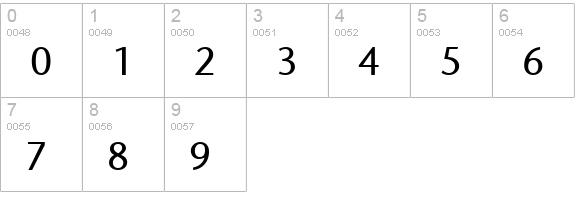
Caltex Nova Sans Font Details
Caltex Nova Sans is a modern and versatile typeface that exudes sophistication and elegance. With its clean lines and balanced proportions, this font is perfect for a wide range of design projects, from branding to editorial layouts. The sleek and contemporary aesthetic of Caltex Nova Sans makes it an excellent choice for conveying a sense of professionalism and style. What sets Caltex Nova Sans apart is that it is available for free download at FontsMarket.com. This means that designers and creatives can access this high-quality font without any cost, making it a valuable addition to their font library. Whether you are working on a print or digital project, Caltex Nova Sans offers a timeless and refined look that will elevate your design work to the next level.